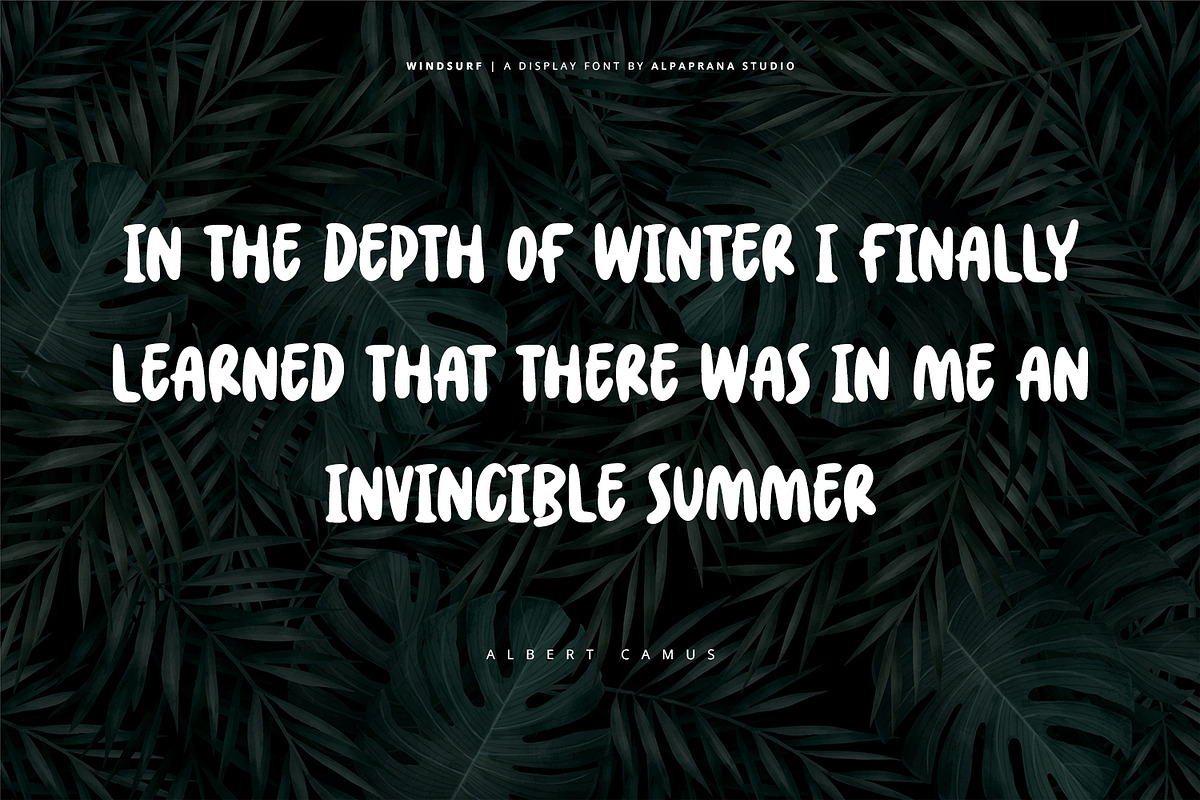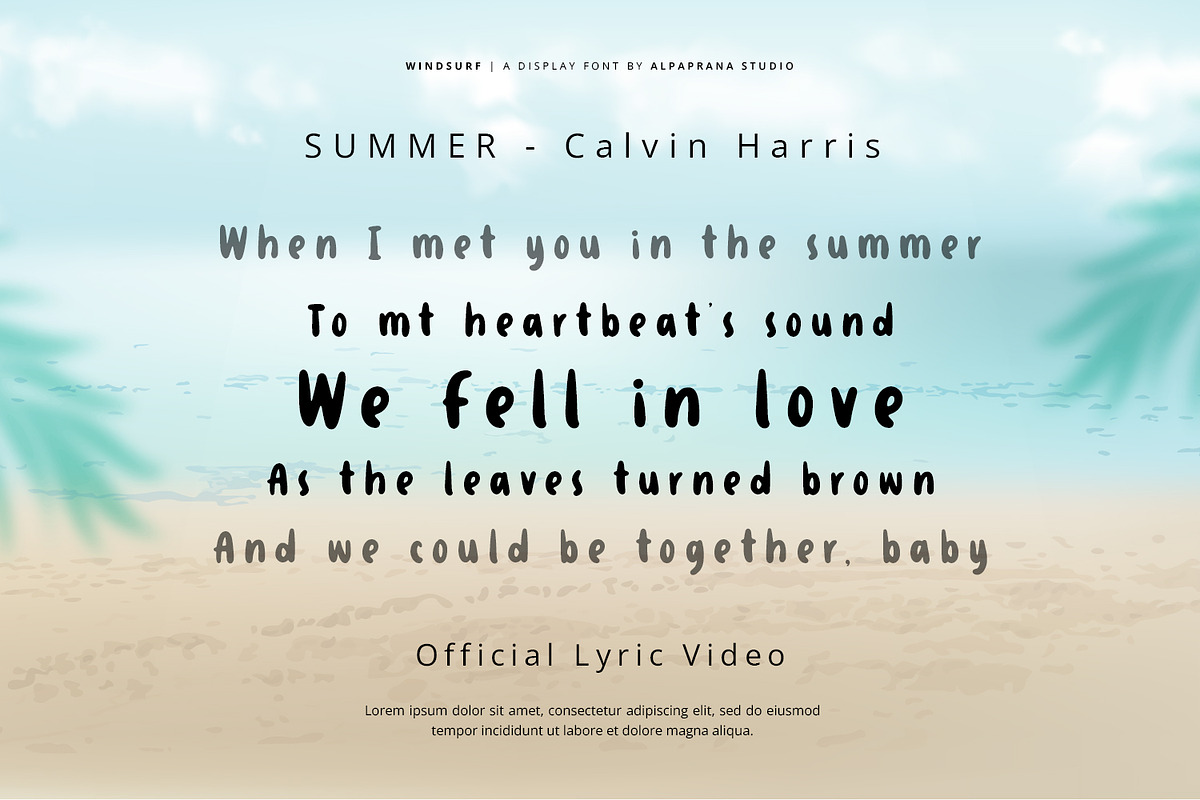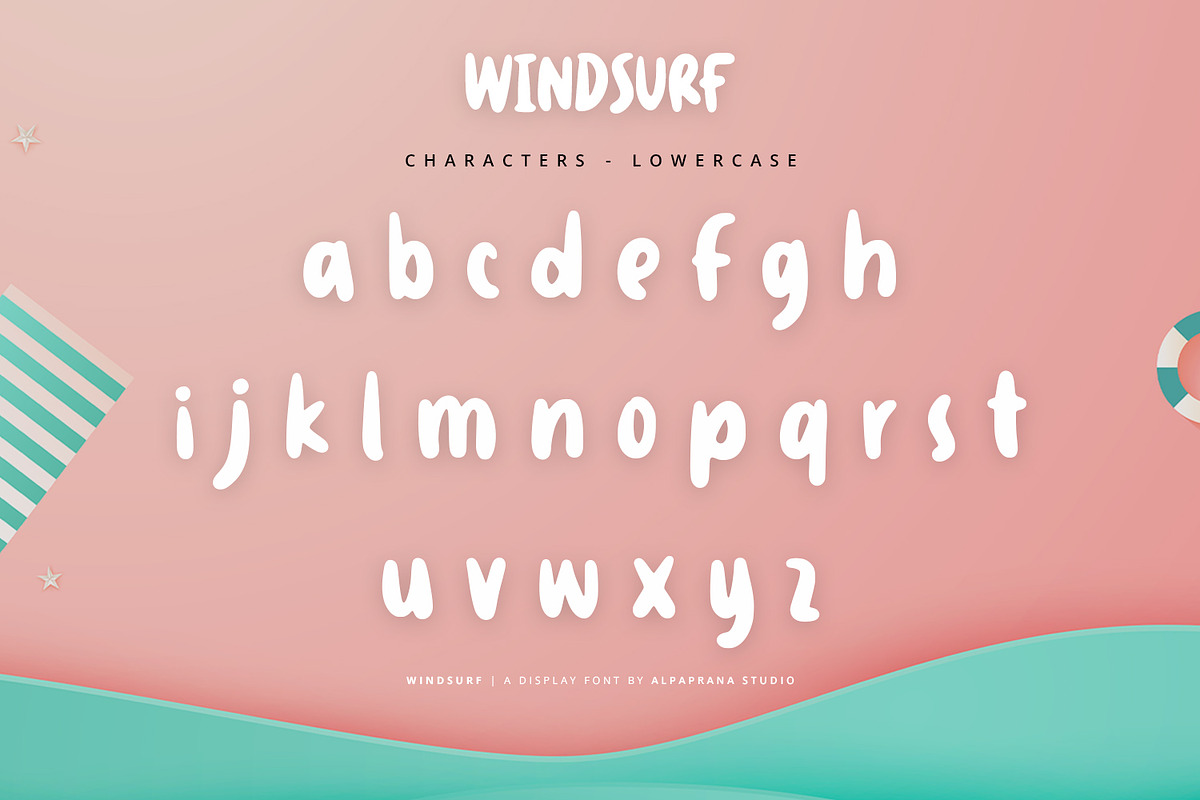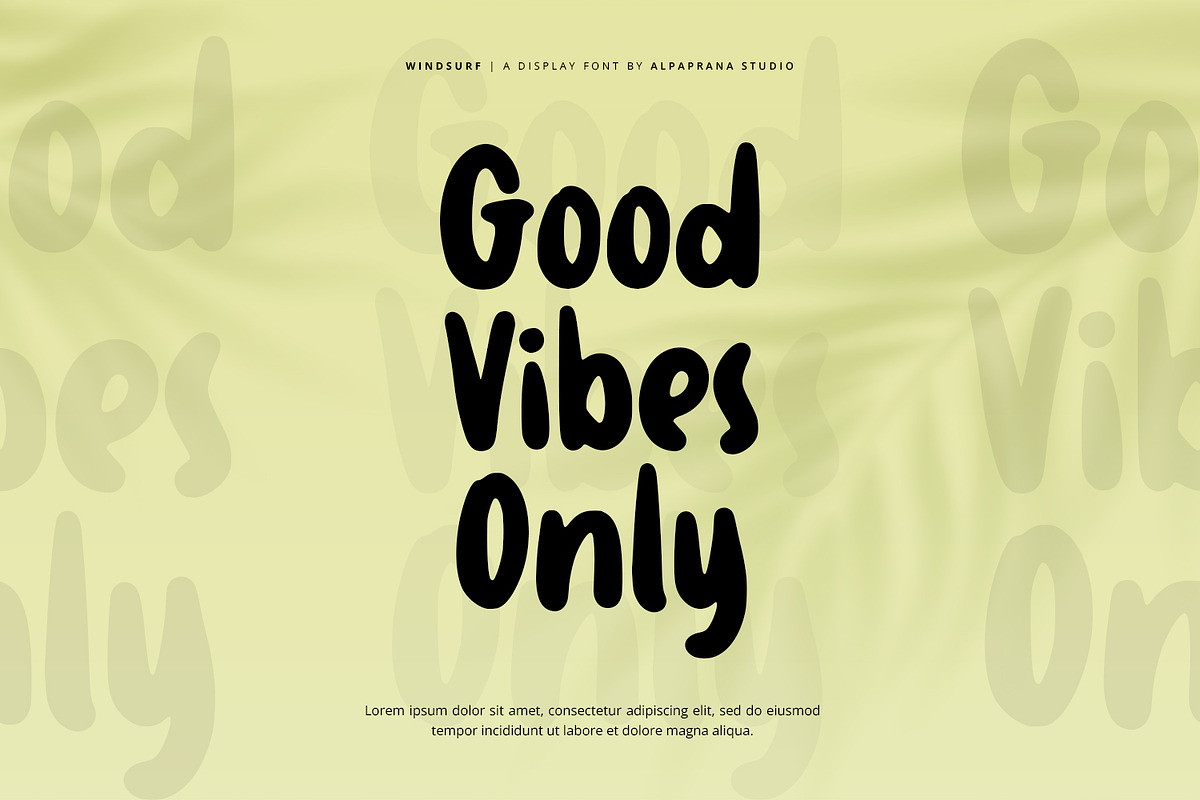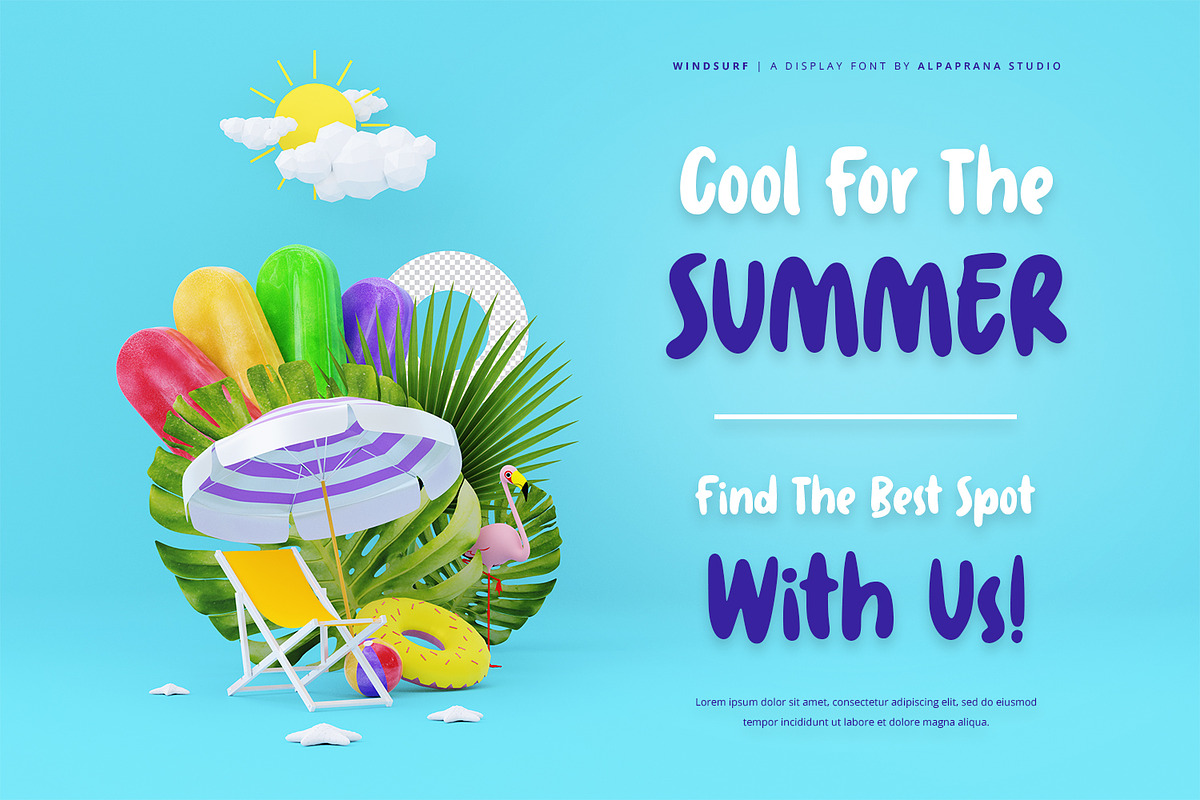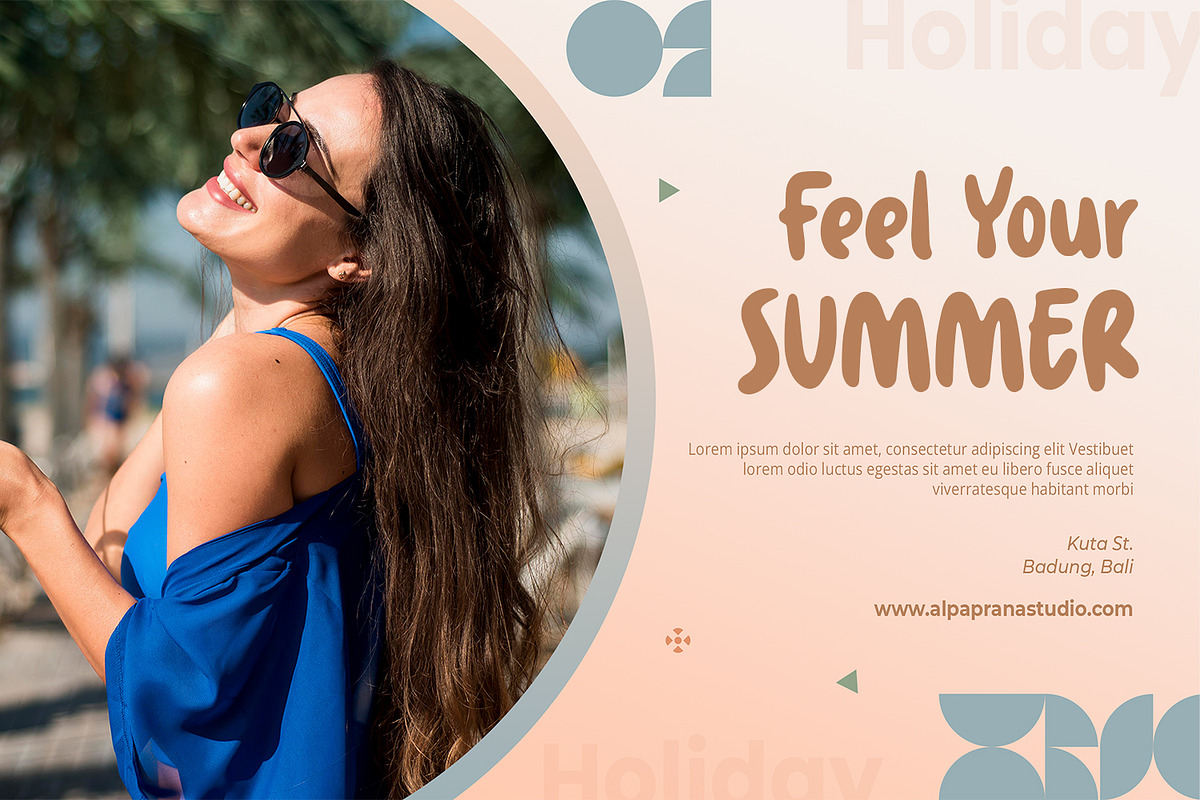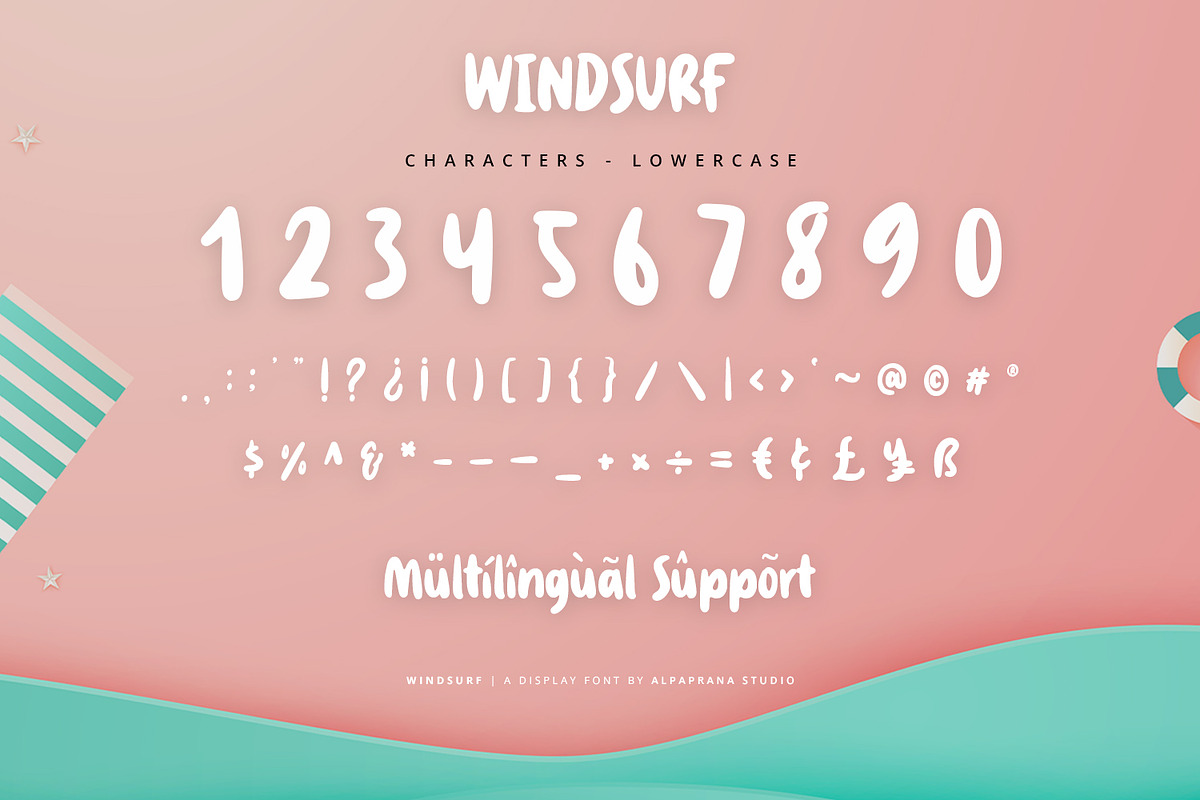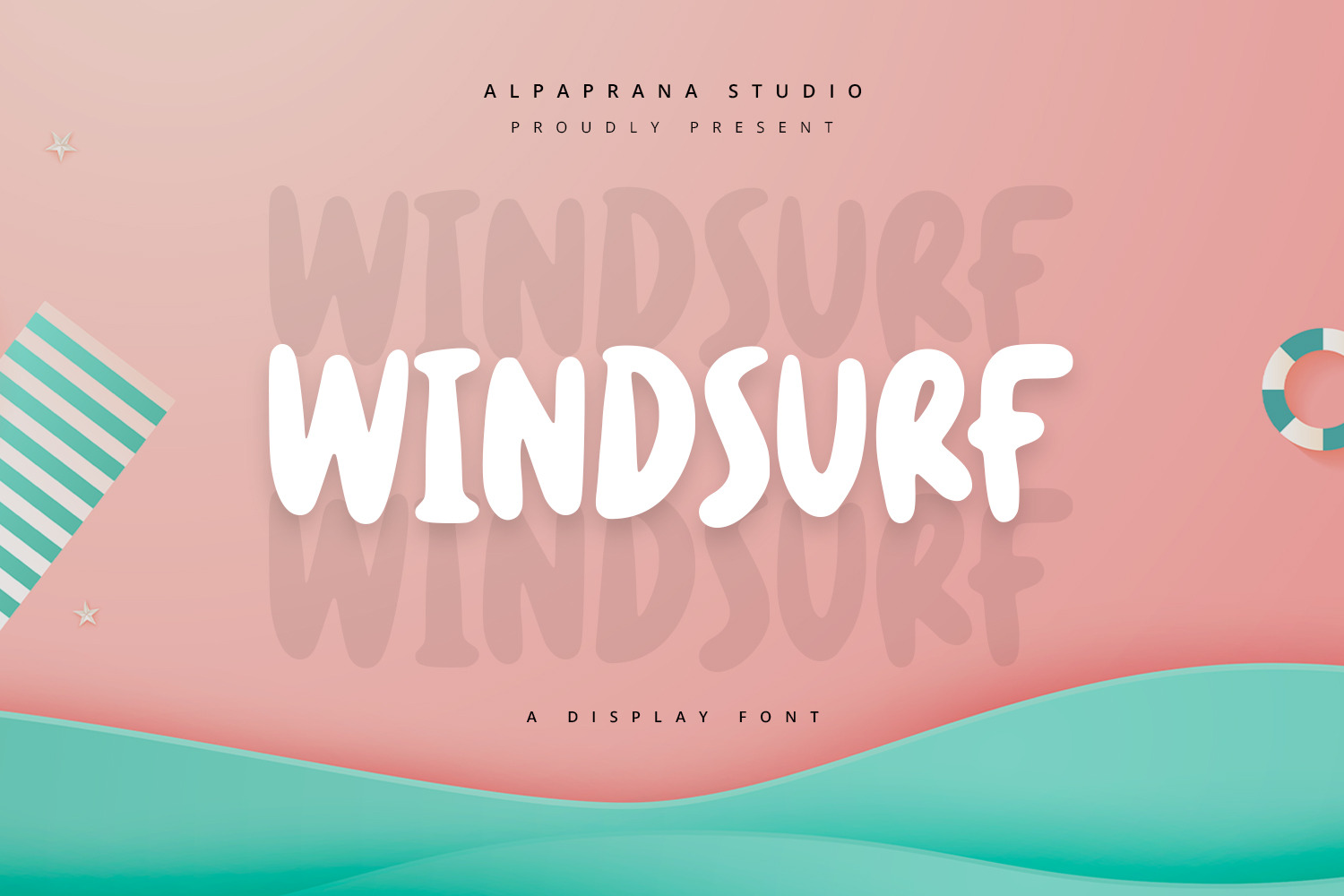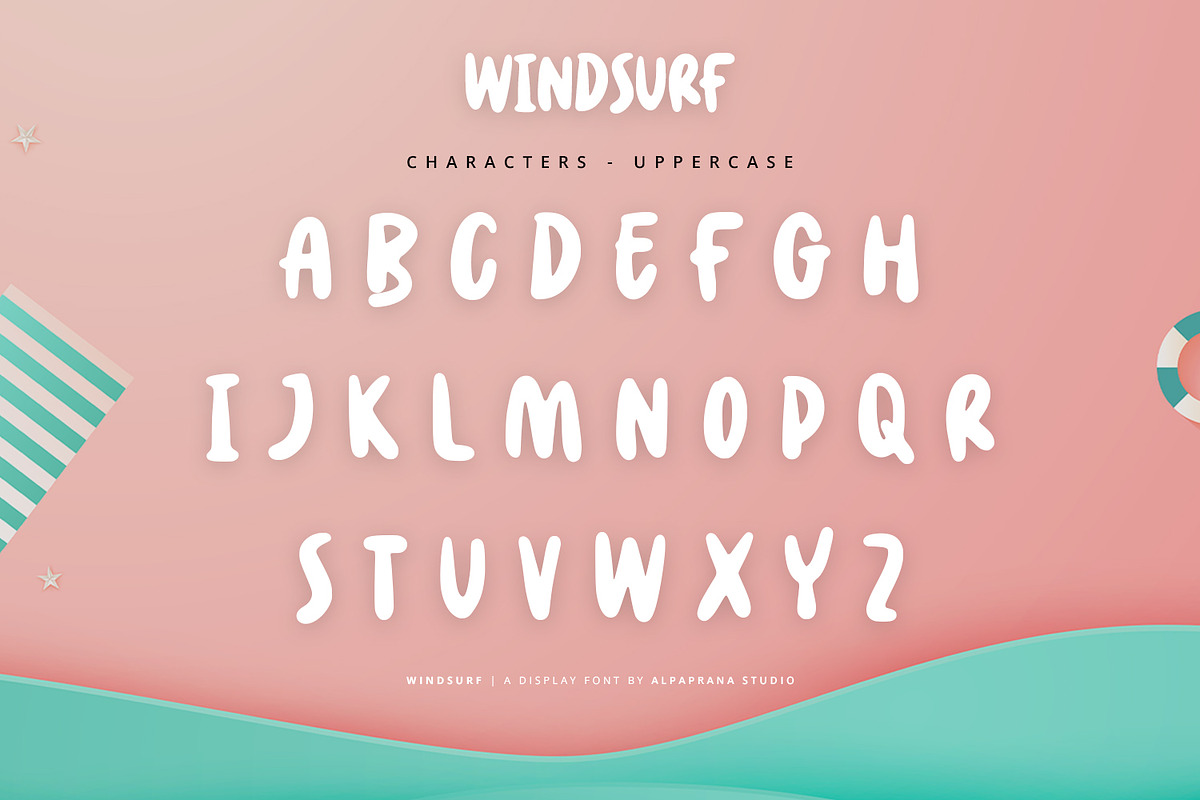
Windsurf - Playful Display Font
Windsurf is a playful display font with authentic and playful feels. It will be perfectly used for Branding, Logo Design, Lettering, Logotype, Clothing, Poster, magazine, packaging, posters, shopping bags, t-shirts, book covers, photography, special events and other design project.